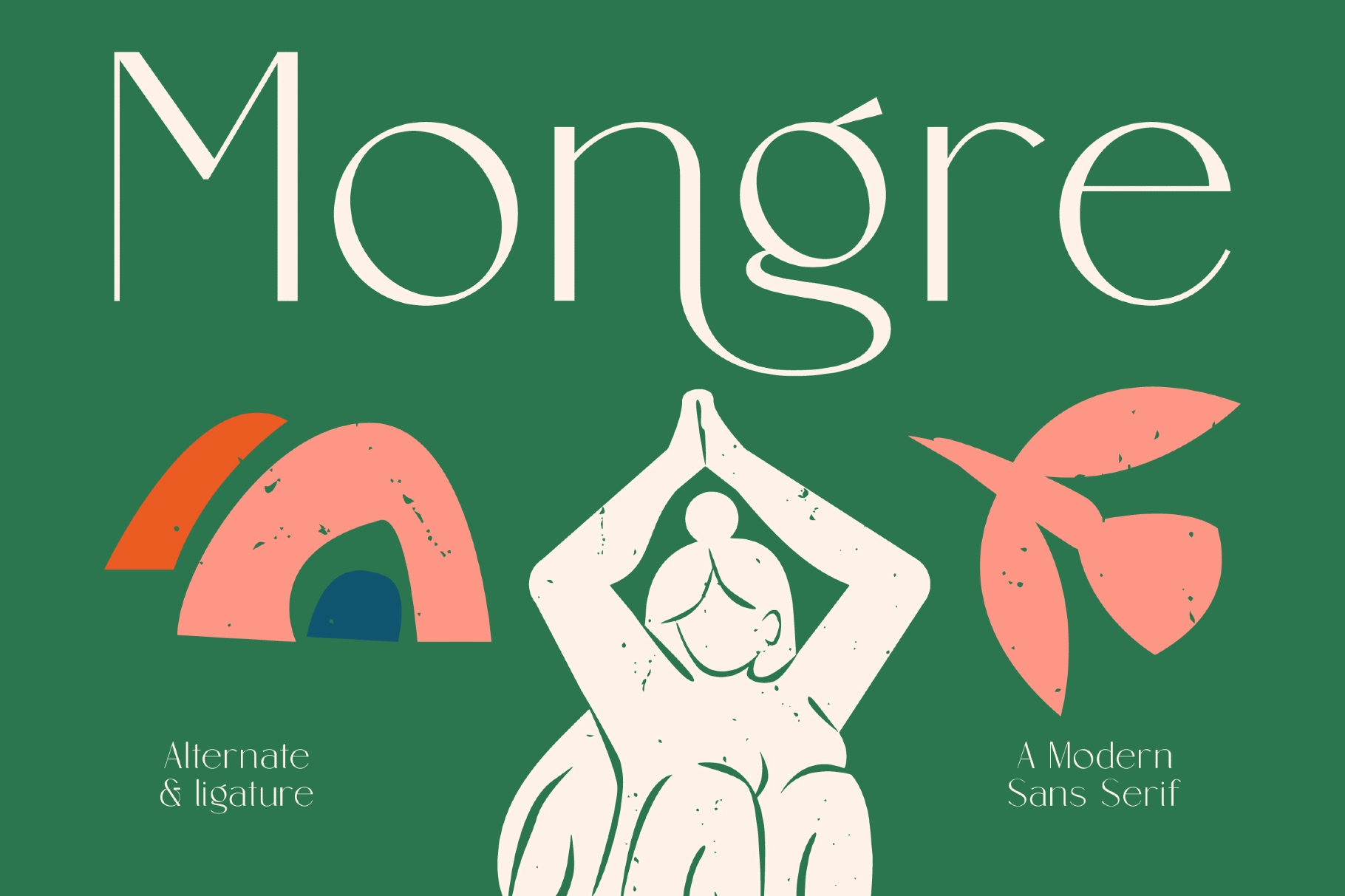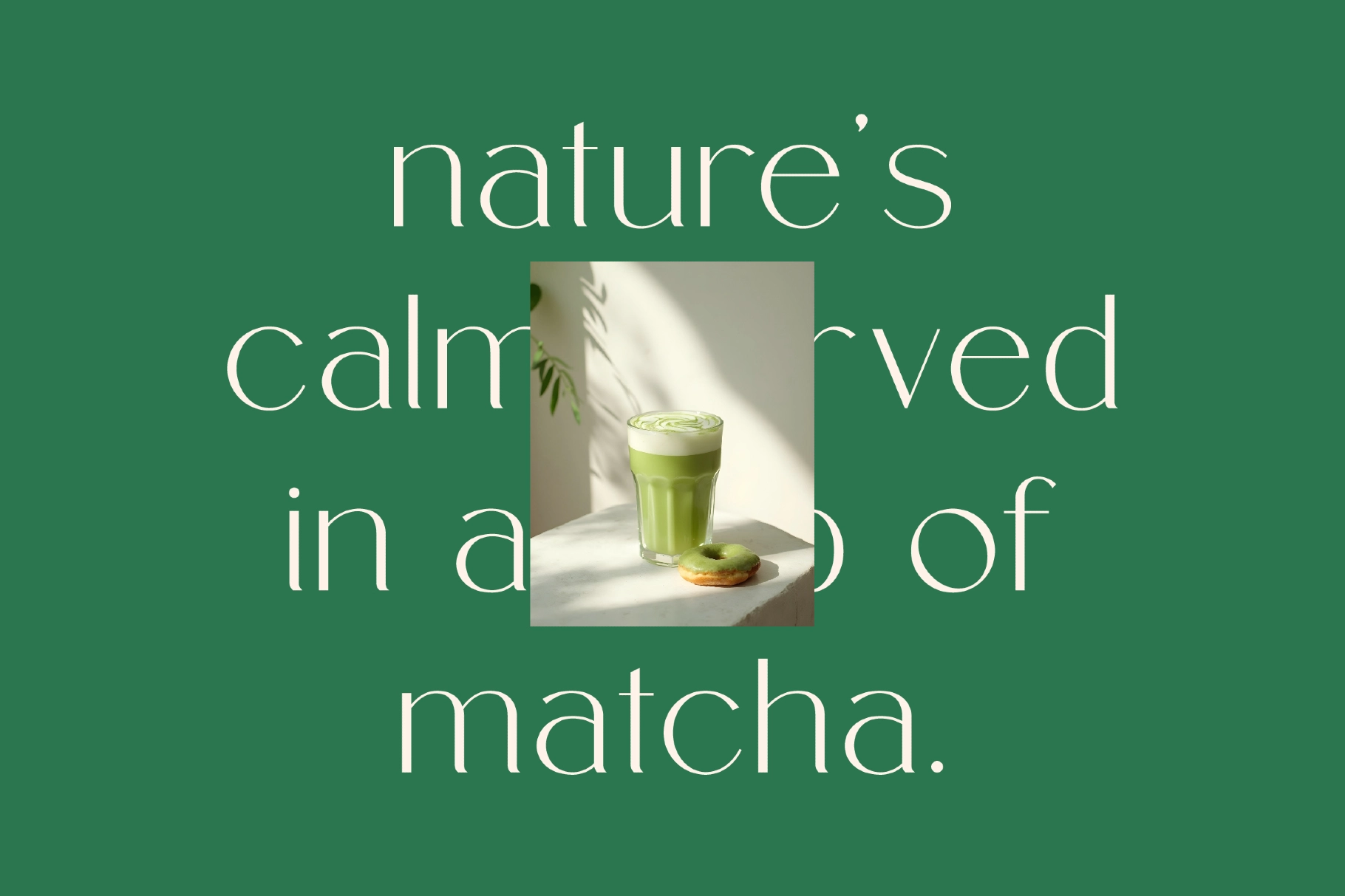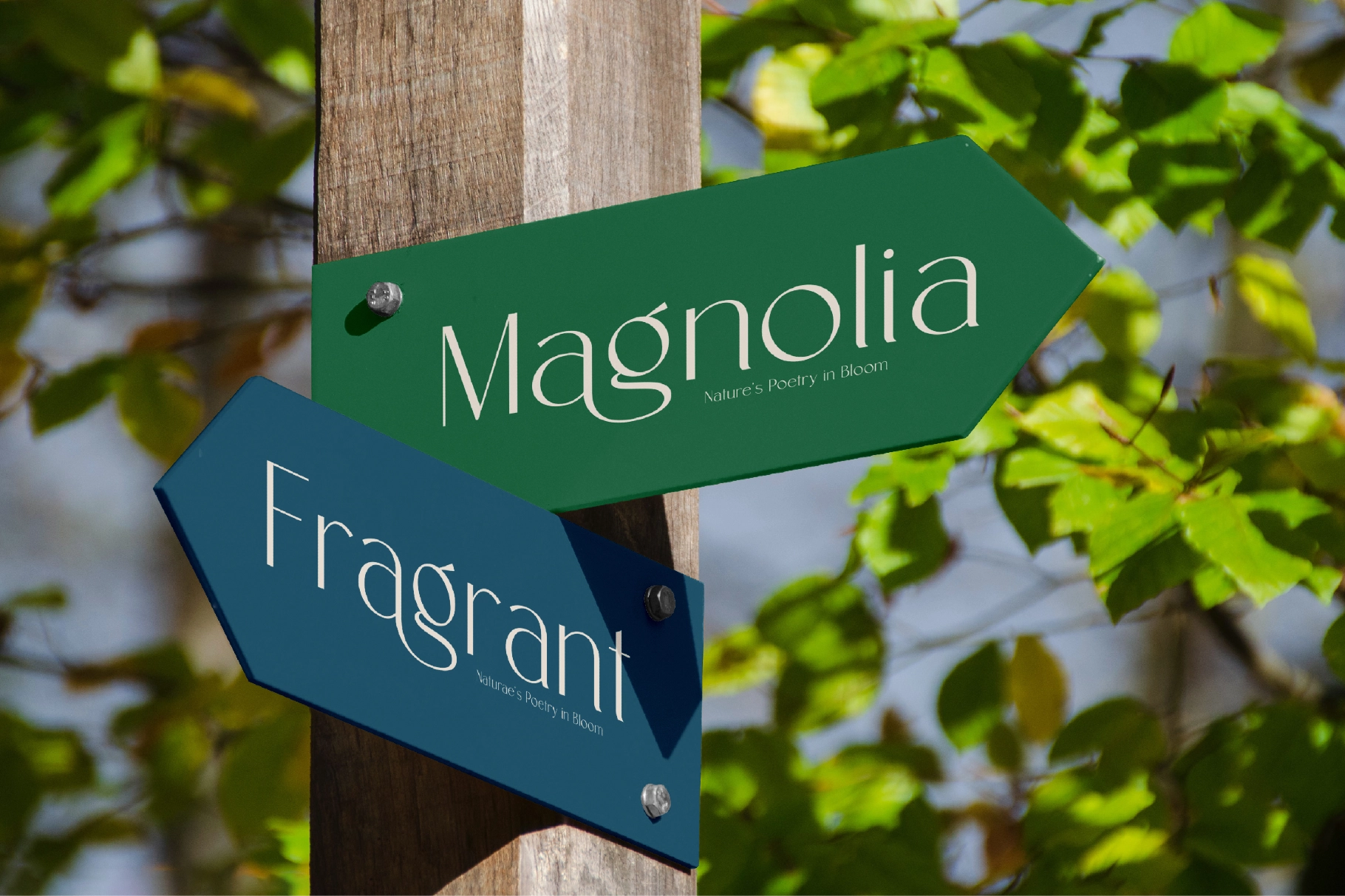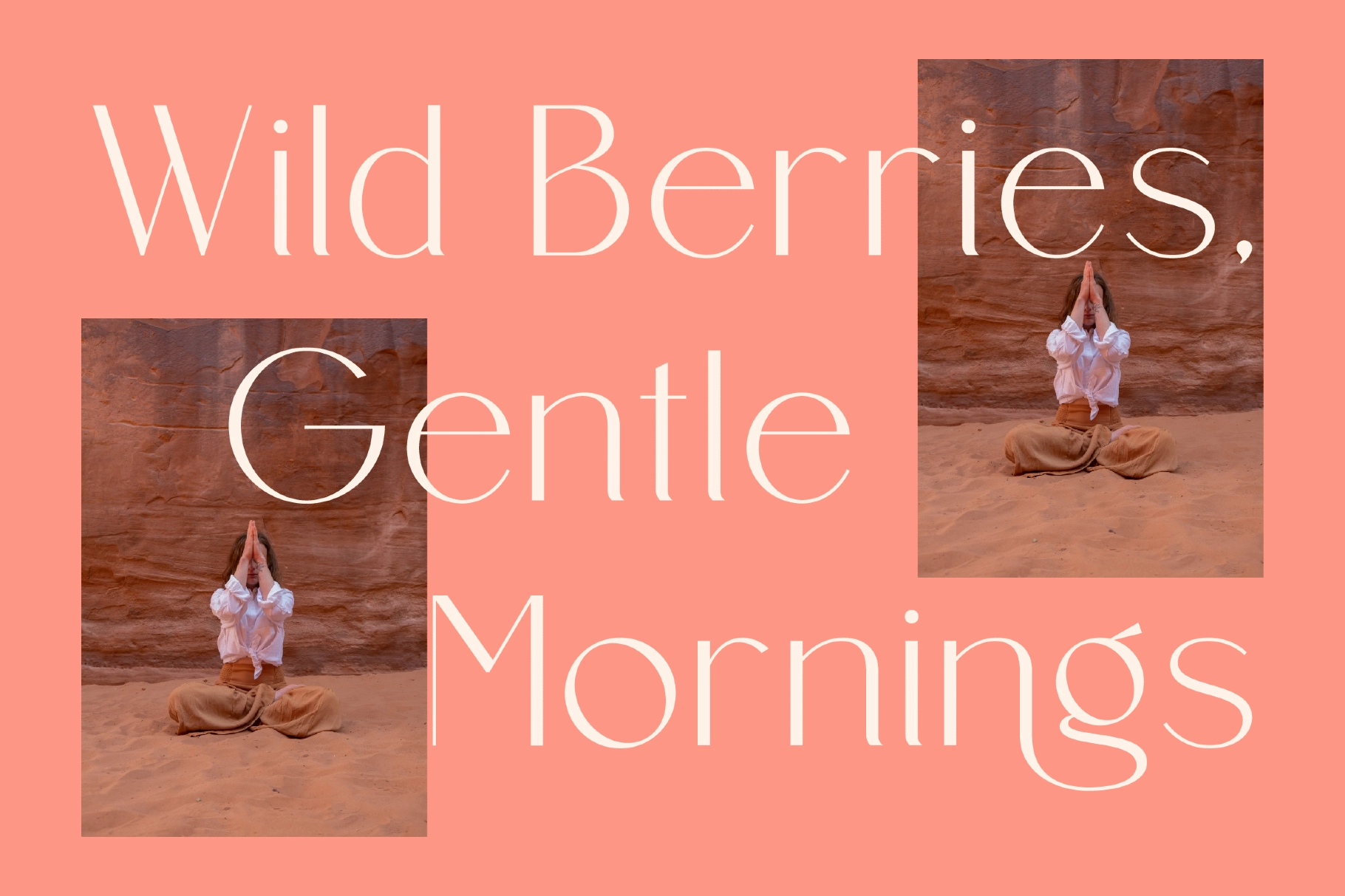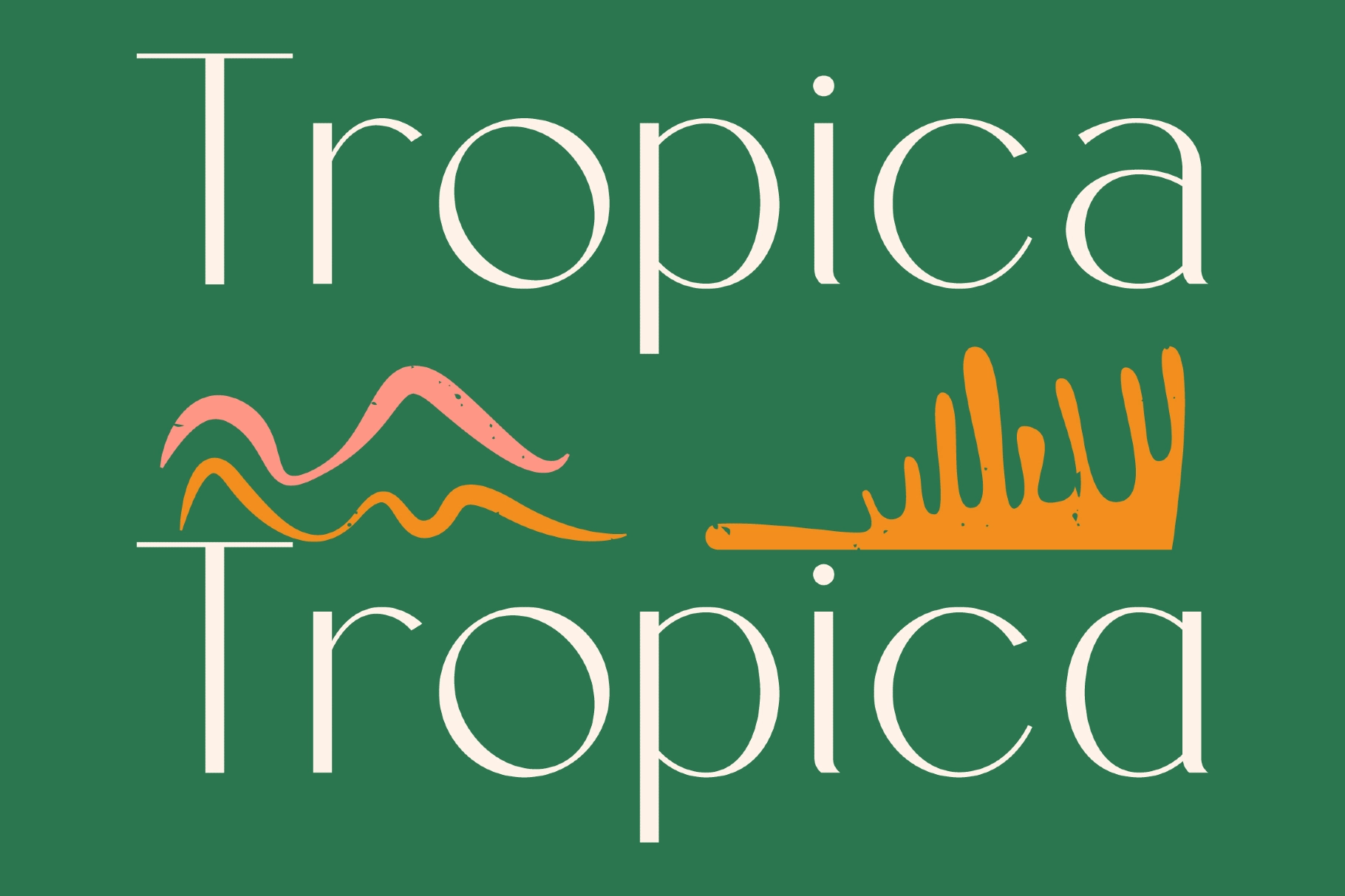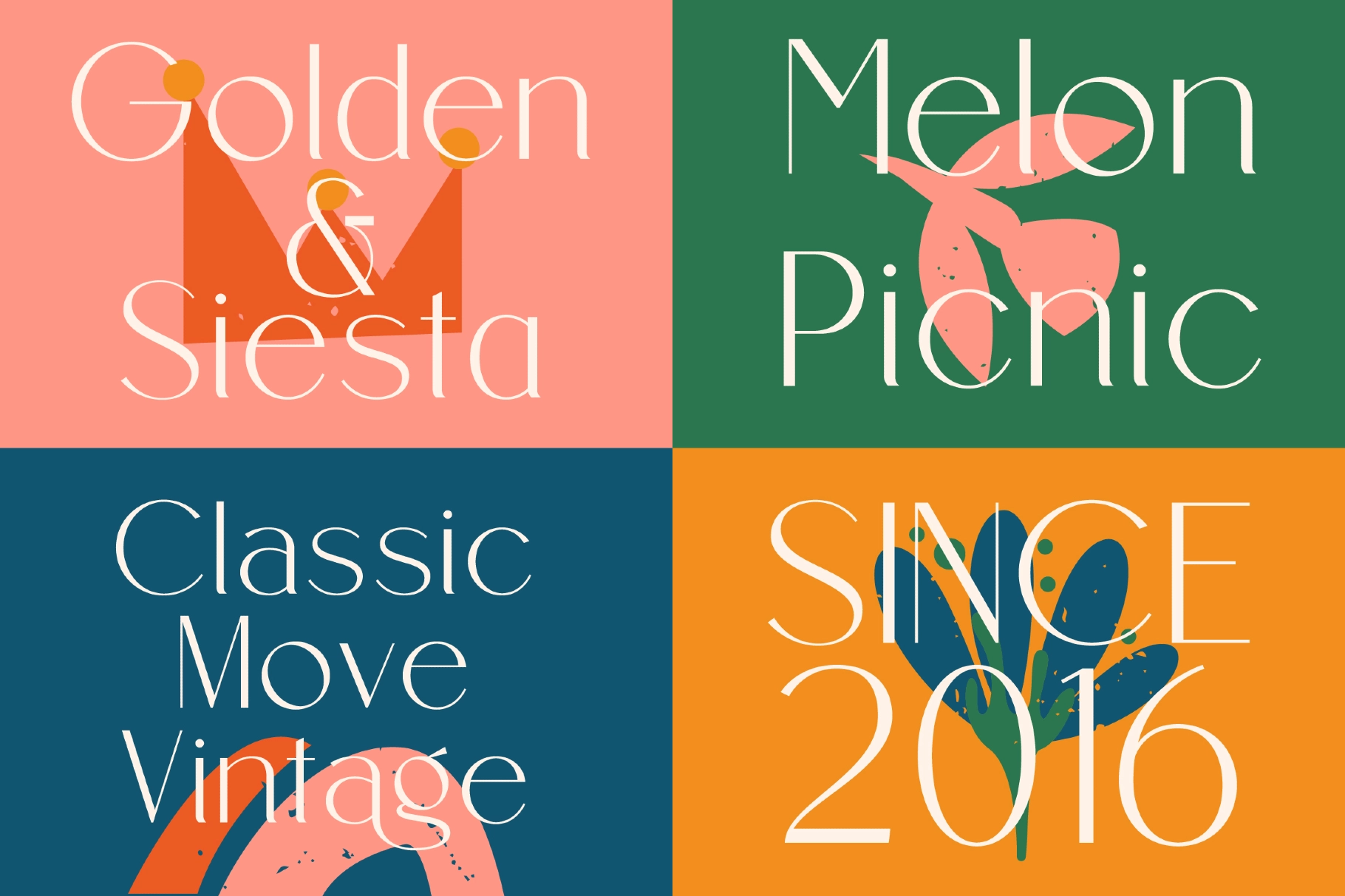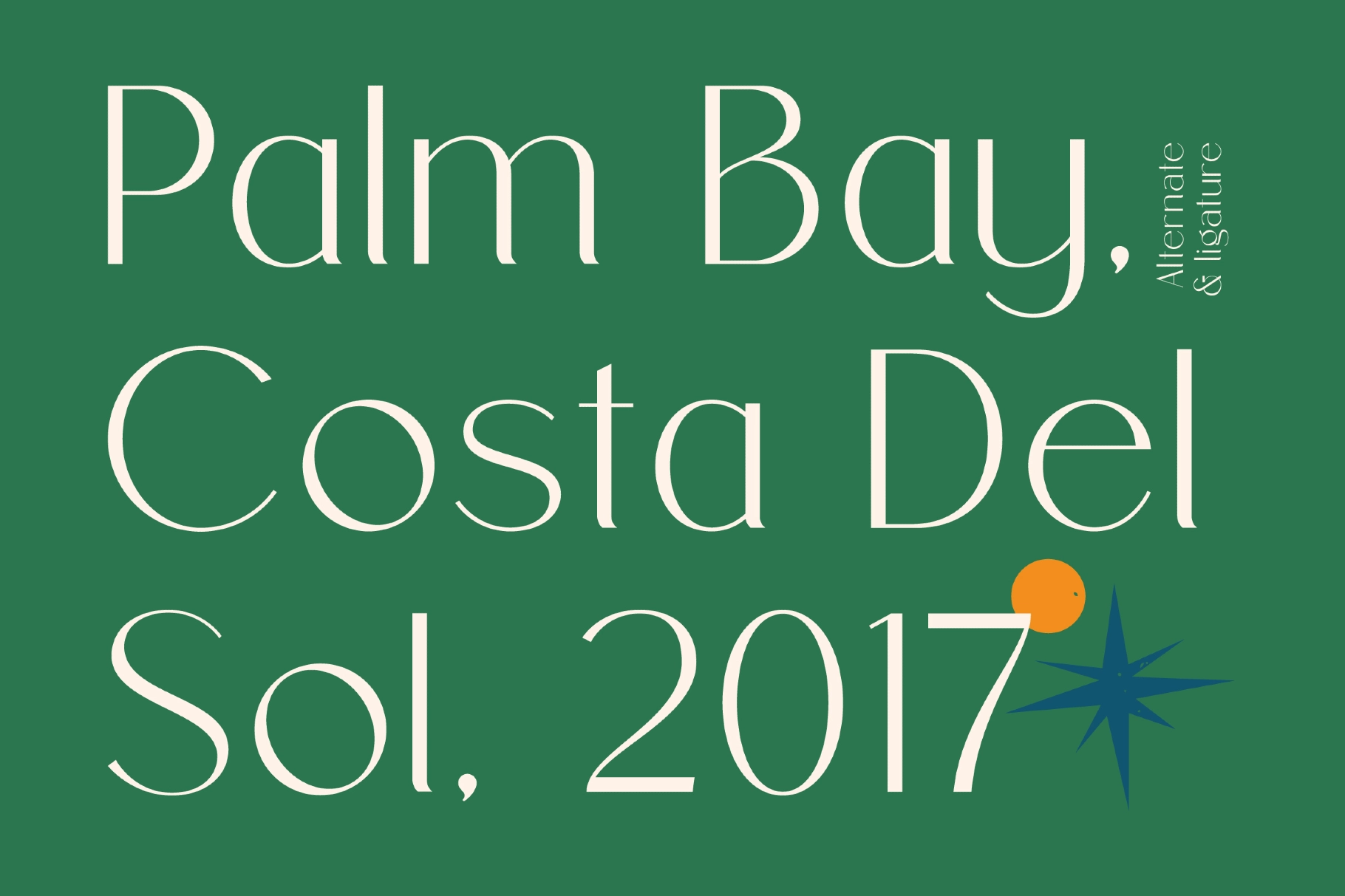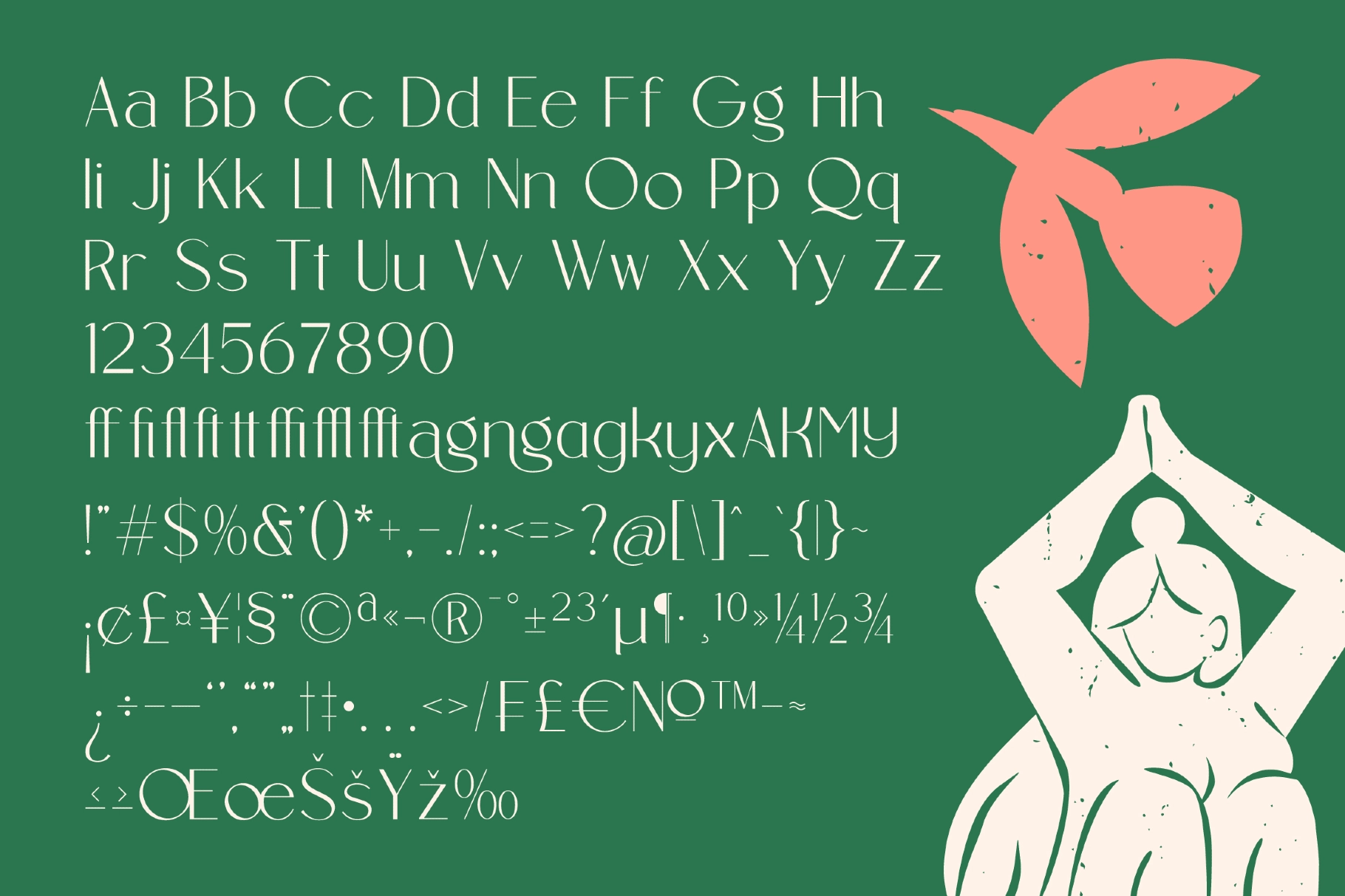
Mongre - Modern Elegant Sans Serif Font
Mongre is an elegant sans serif font that sits between vintage travel-magazine mastheads and boutique shop signage, with a tall x-height and thin-to-thick stroke contrast that keeps every line light on the page. Alternate characters swap in ball-terminal G's and a looped g, while a deep ligature set covers fi, fl, ffi, ffl, and several letter pairs for cleaner kerning at display sizes. The italic companion tips the same structure into a softer, slanted register.
The narrow proportions and quiet contrast hold up at both ends of a layout, from a single masthead word down to a pull quote. Use it for boutique and wellness branding, magazine mastheads, editorial headlines, retreat and market posters, quote cards, social announcement posts, and packaging labels for candles, skincare, and gift boxes.
- Ligatures & stylistic alternates